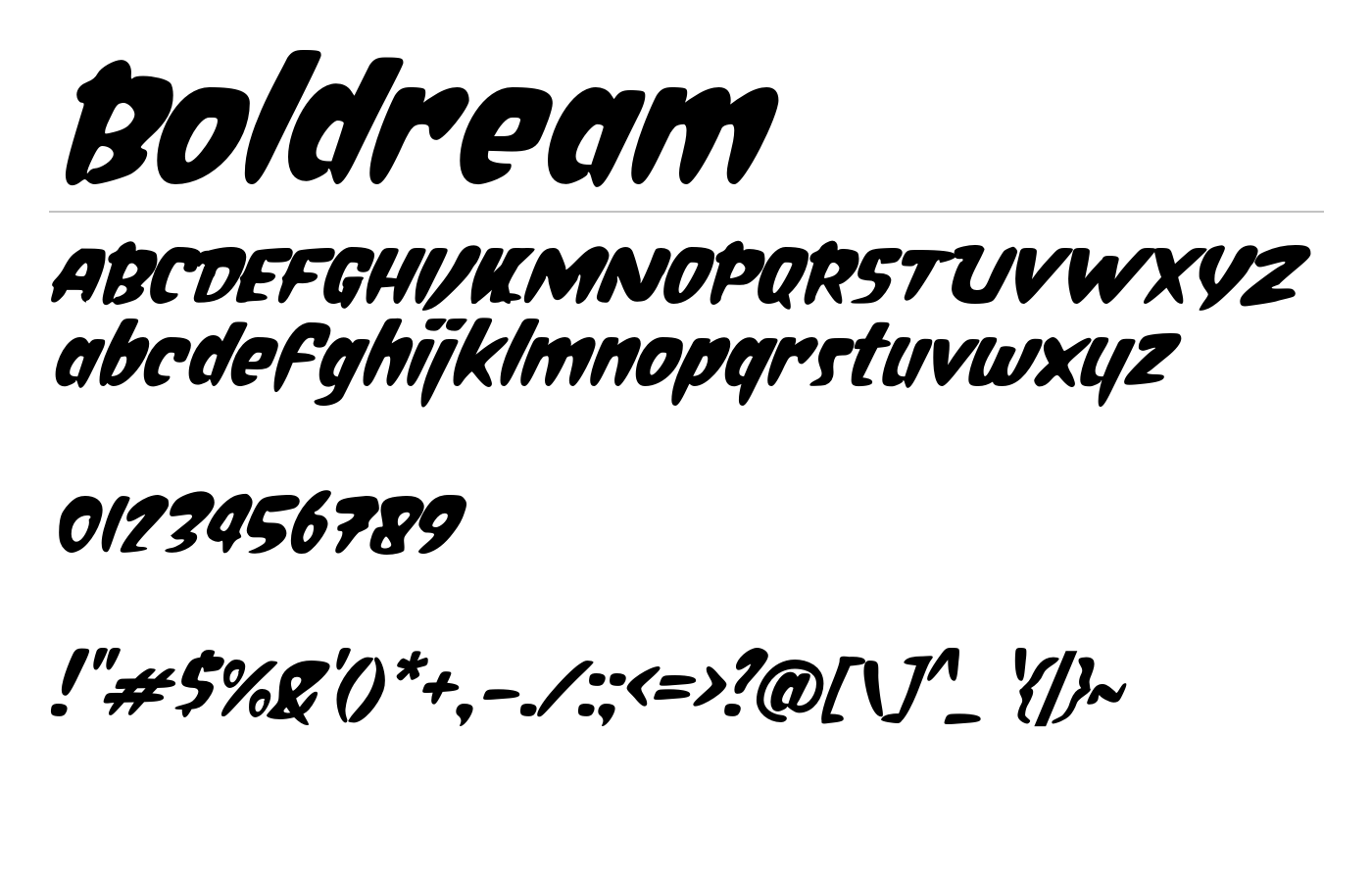
Boldream is a bold, casual script font featuring smooth, energetic strokes that give it a hand-painted, lively feel. Its slightly condensed letterforms with high contrast and unique, playful shapes make it perfect for creative branding, headlines, and eye-catching designs that want to convey confidence and personality. This font works well where a modern yet approachable style is desired, such as logos, posters, and dynamic web graphics.
Boldream Font